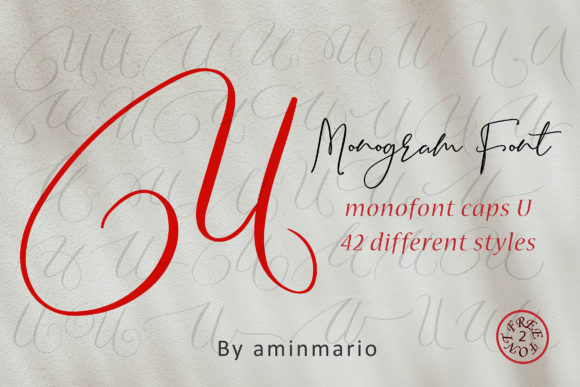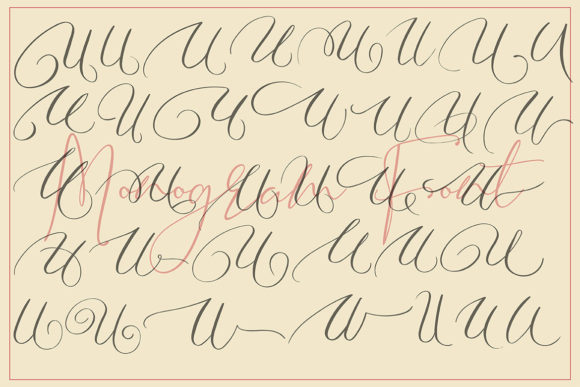
Monogram U | Monofont Caps U Font
This MONOGRAM is natural handwriting of capital U with 36 different styles.
This is not for writing words or sentences, but for monograms. Bonus 2 Font that contains the uppercase and lowercase to support it.